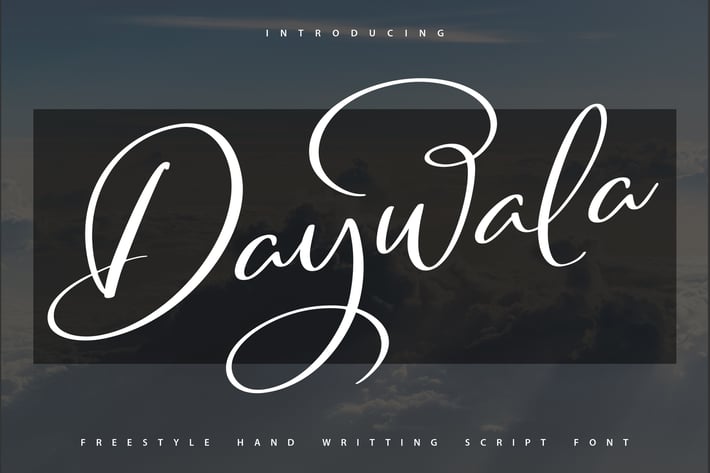
Daywala | Handwritting Script Font
Daywala | Handwritting Script Font with a calligraphy style, So beautiful on invitation like greeting cards, branding materials, business cards, quotes, posters, and more!